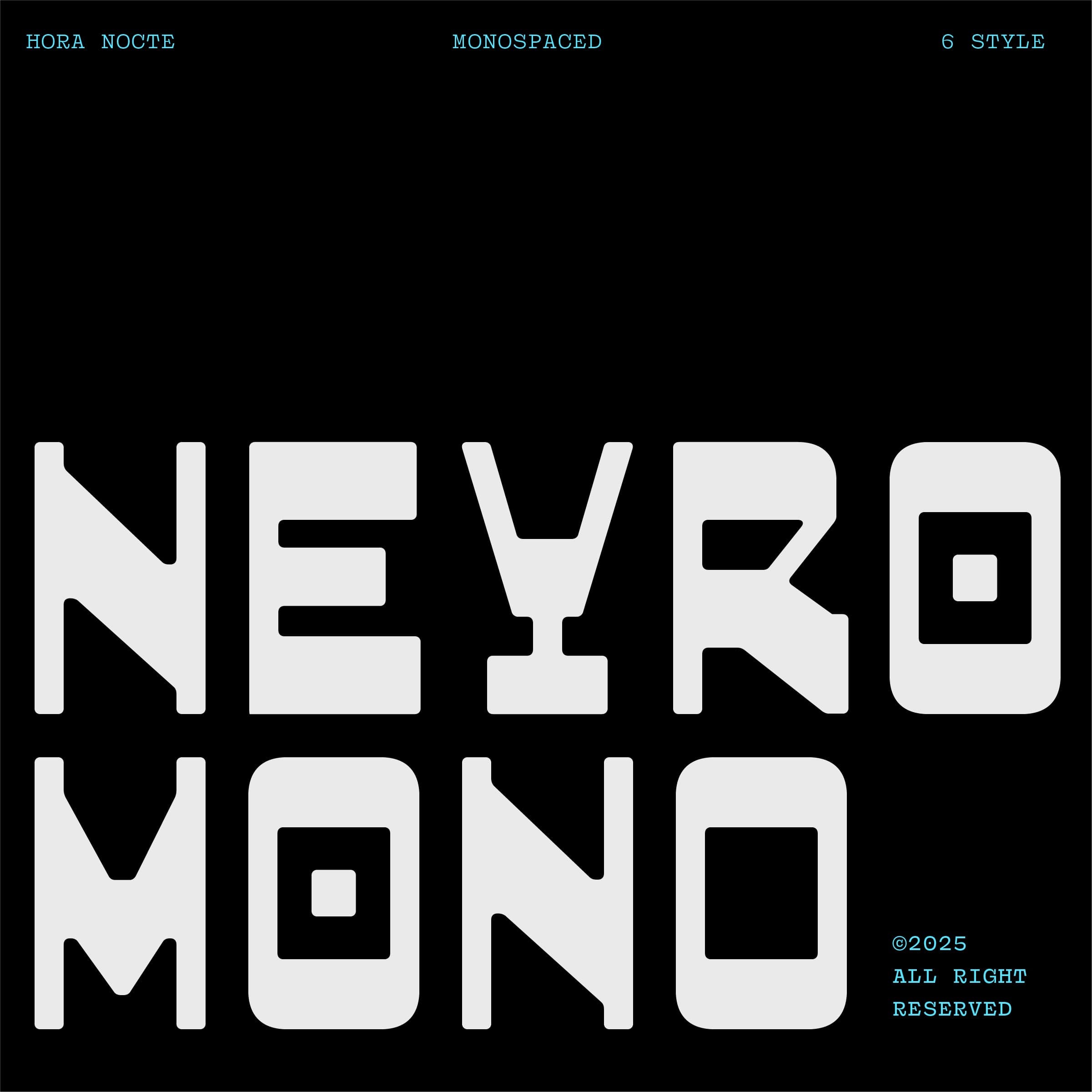
<p><strong>HN Neyro Mono *<em>is a display typeface with monospaced and geometric shape. This typeface comes with 6 Styles ( Regular, Soft, Drawn, and Slanted Version). Perfect for Poster, Bold Headline, Branding, etc. <br>*</em>HN Neyro Mono</strong> delivers Bold and Unique Typographic Solution.</p>